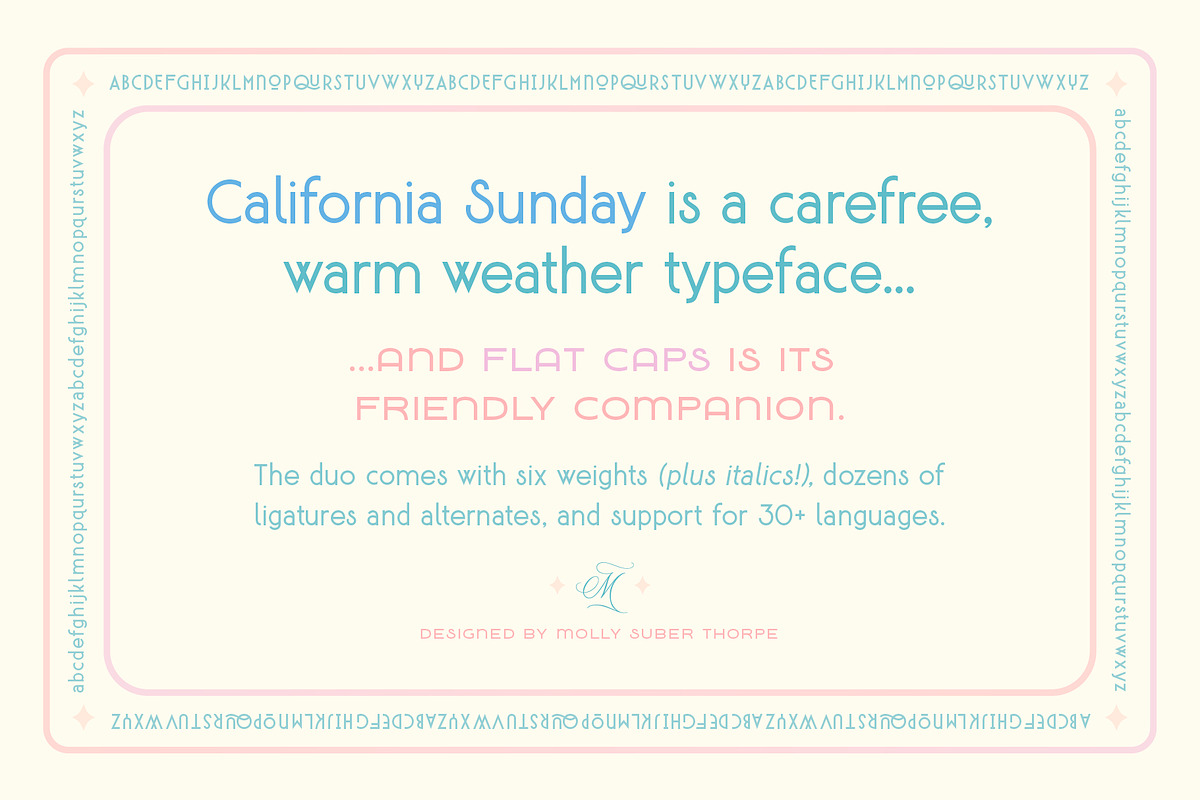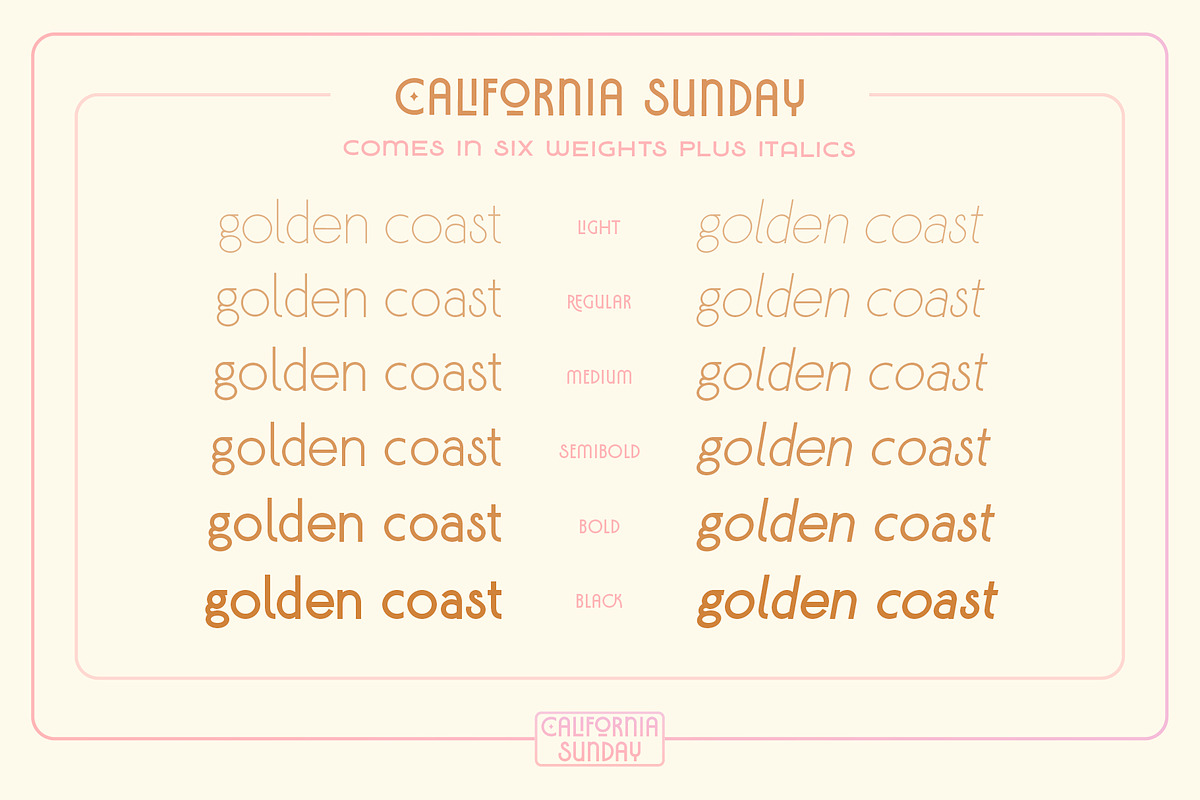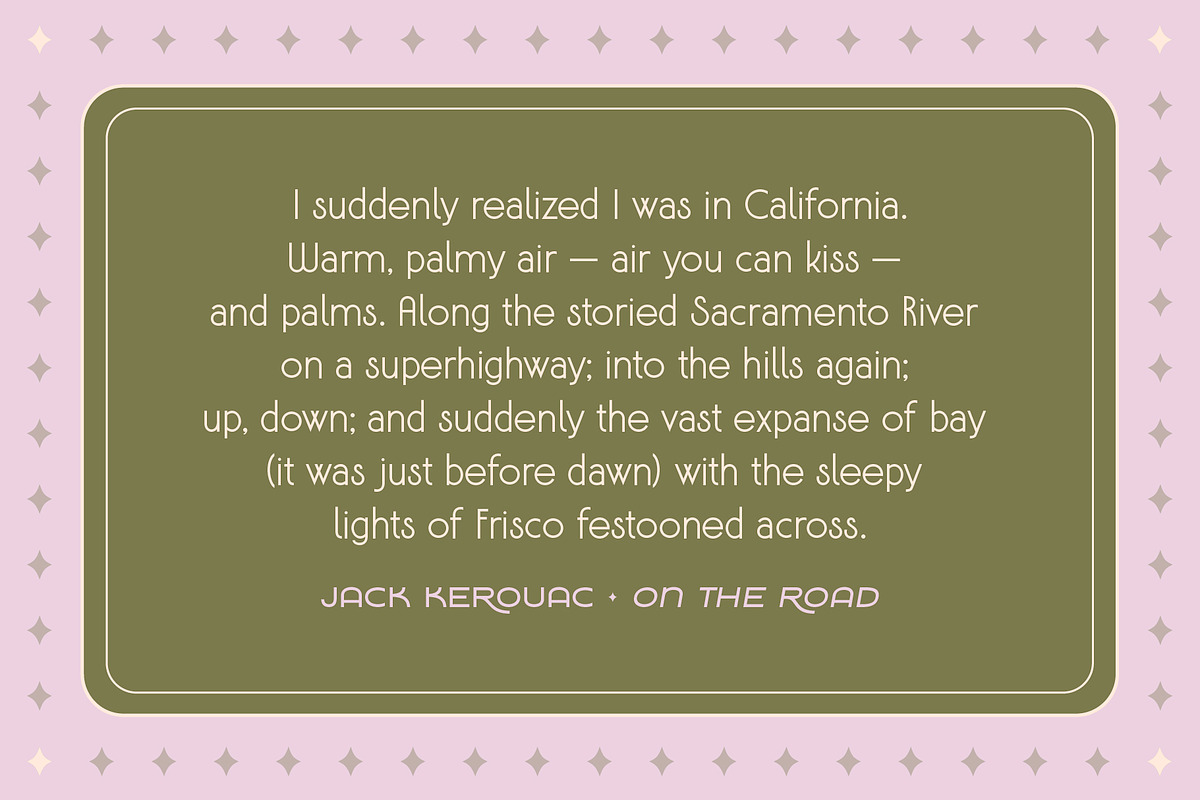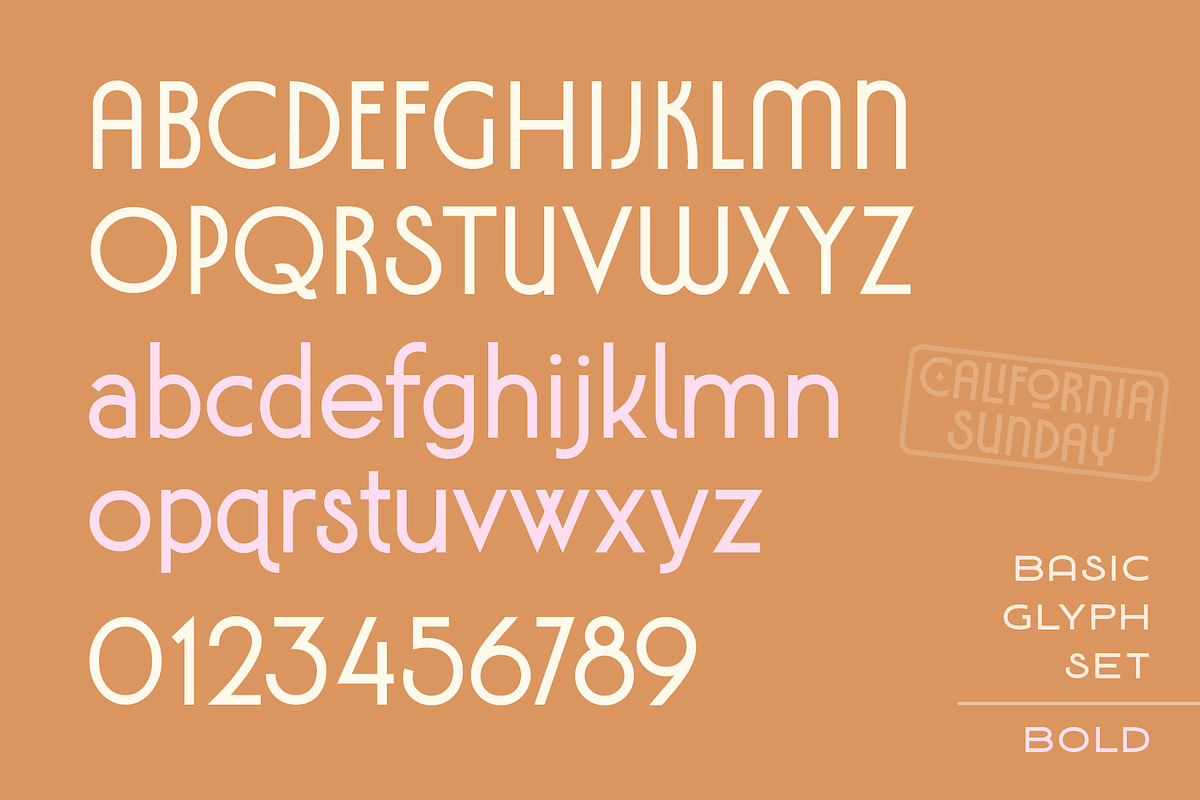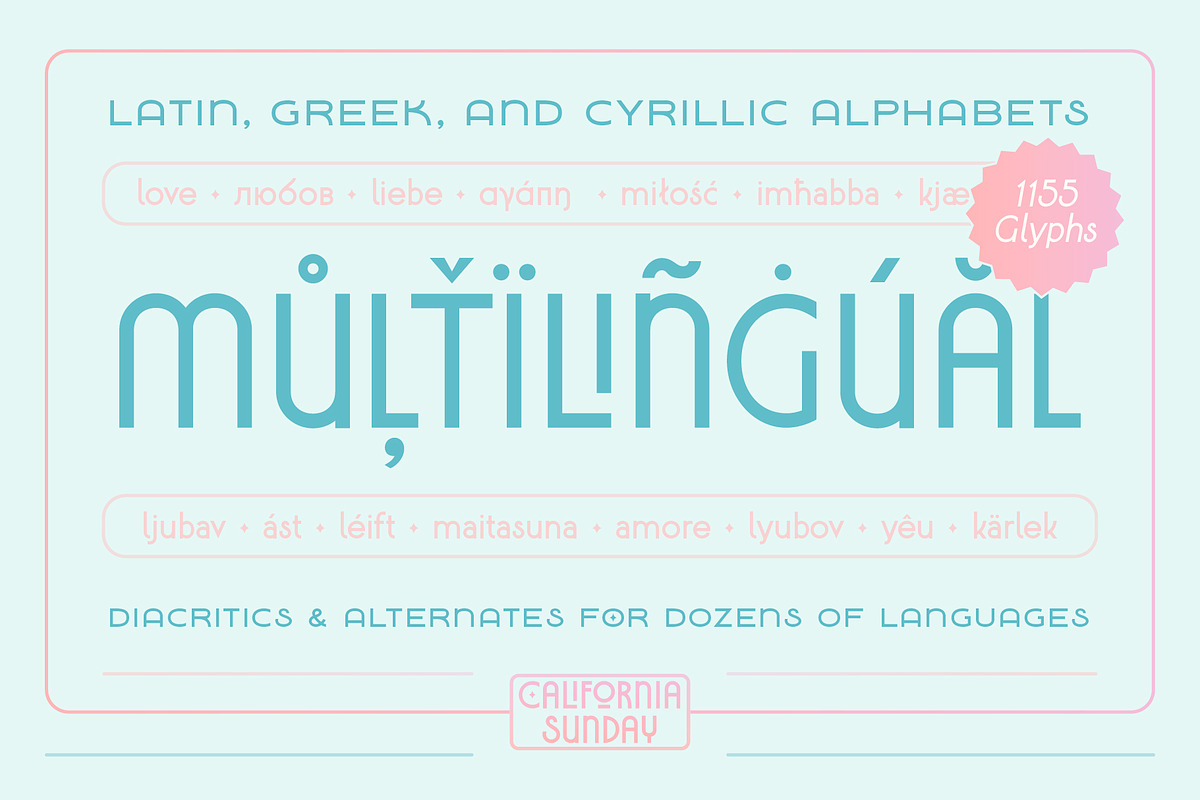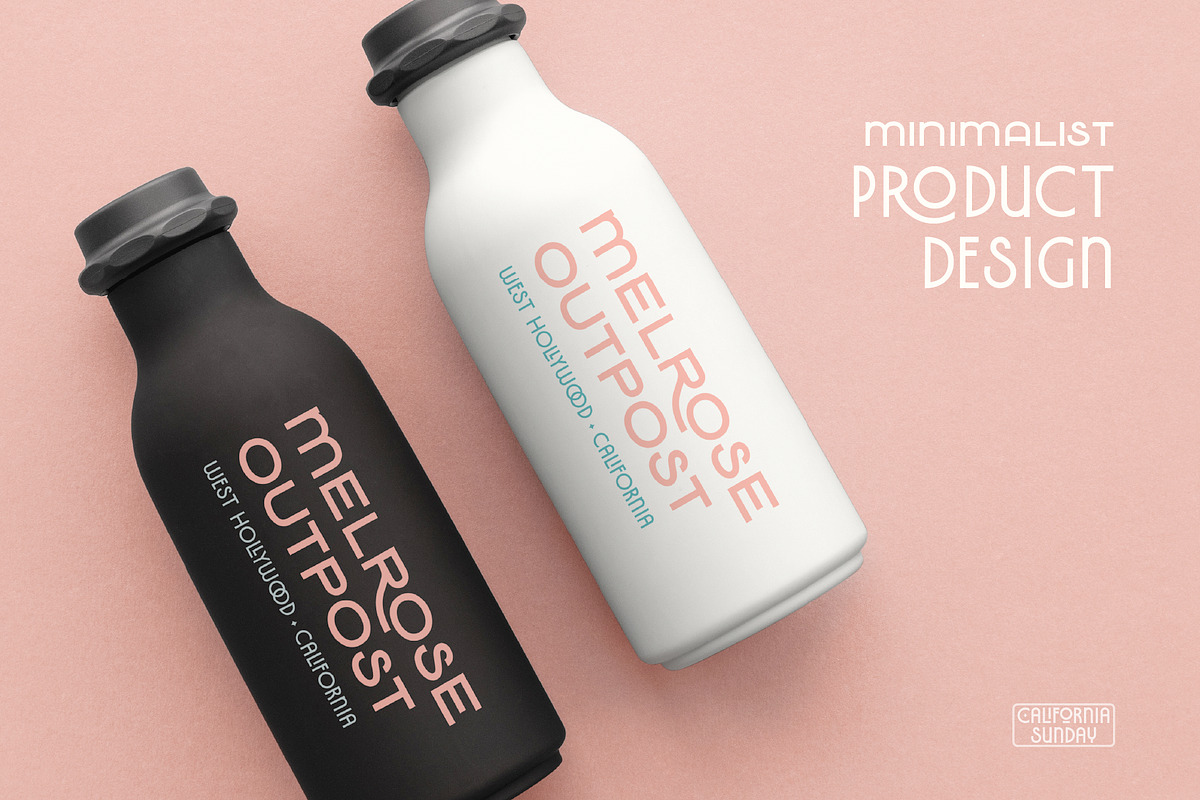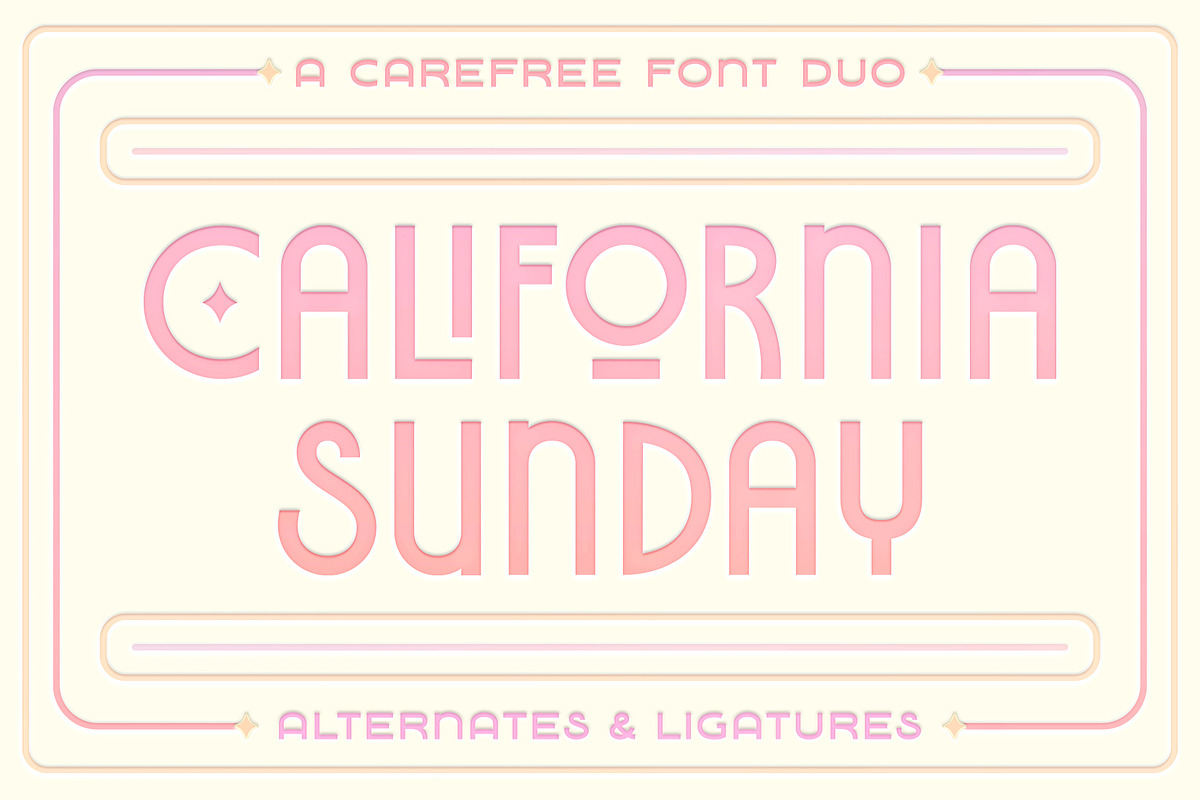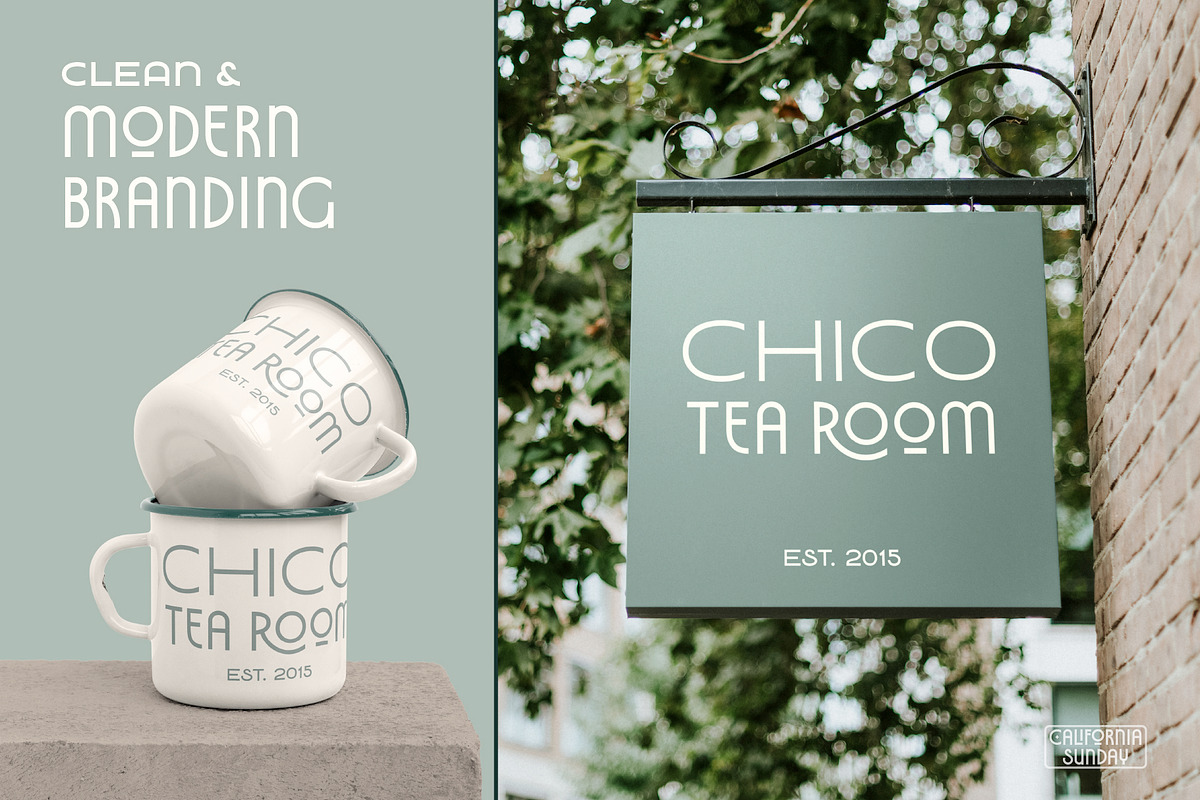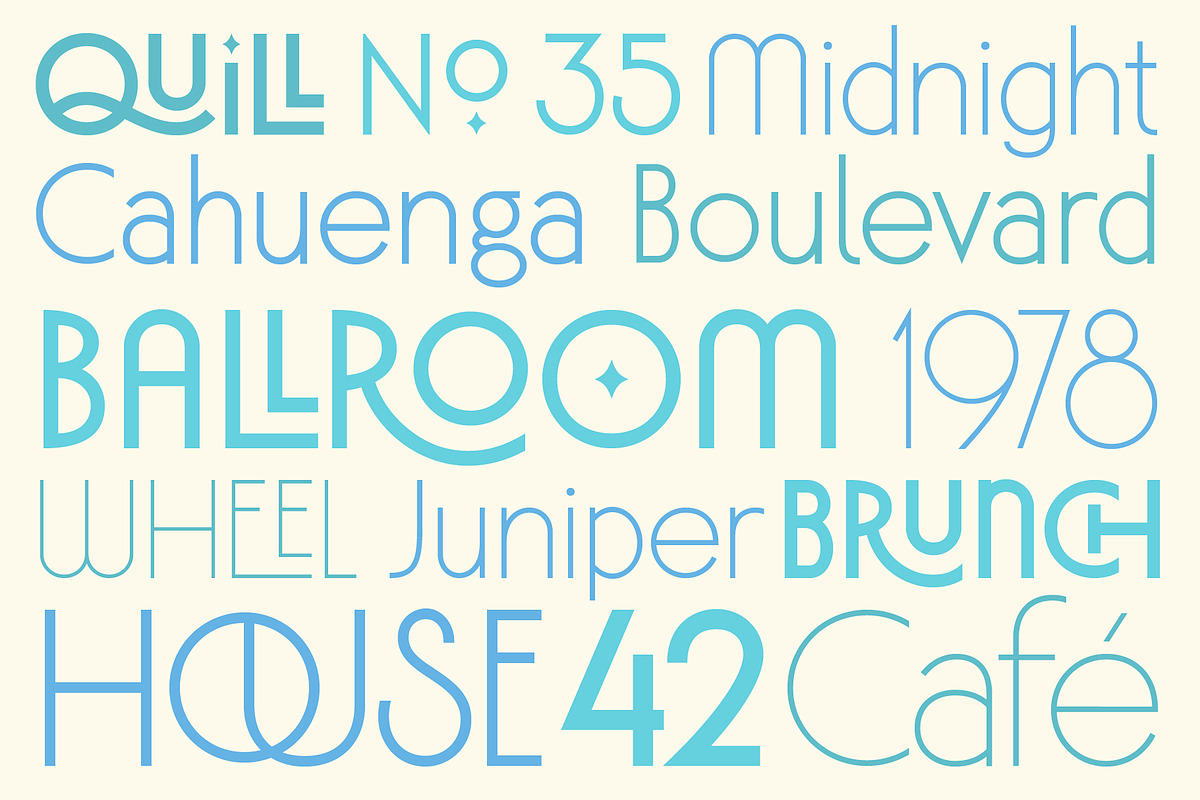
California Sunday Font Duo
California Sunday Font Duo is a set of two modern sans serif typefaces inspired by carefree, warm summer days. California Sunday Classic includes uppercase and lowercase with rounded features, while California Sunday Flat Caps is an all-uppercase typeface with complementary character.
Both styles in the duo come with six weights – plus italics! – dozens of ligatures and alternates, and support for 30+ languages (including Greek and Cyrillic alphabets).
This is a very versatile font pairing, which can be used for 1980s retro and Millennial-modern designs alike. It’s ideal for clean, friendly branding because of the perfect contrast between the alternate-rich California Sunday Classic and its friendly companion California Sunday Flat Caps.
California Sunday Classic (730 glyphs) and California Sunday Flat Caps (427 glyphs) consist of:
- the complete Latin alphabet (with all accent marks)
- the complete Modern Greek alphabet (with all accent marks)
- the complete Cyrillic alphabet (with all accent marks)
- dozens of common and decorative ligatures and alternates
- extensive punctuation
- numerals and fractions
- dingbats and arrows
Languages
California Sunday has Latin, Greek, and Cyrillic alphabets, supporting dozens of languages and making it ideal for multilingual branding, publications, ads, social media, and more! Among the most common languages it supports are: English, Bulgarian, Catalan, Croatian, Czech, Danish, Dutch, Filipino, Finnish, Flemish, French, German, Modern Greek, Hungarian, Icelandic, Indonesian, Italian, Luxembourgish, Maltese, Norwegian, Polish, Portuguese, Russian, Serbo-Croatian, Spanish, Swedish, Swiss German, Turkish, and Ukrainian.